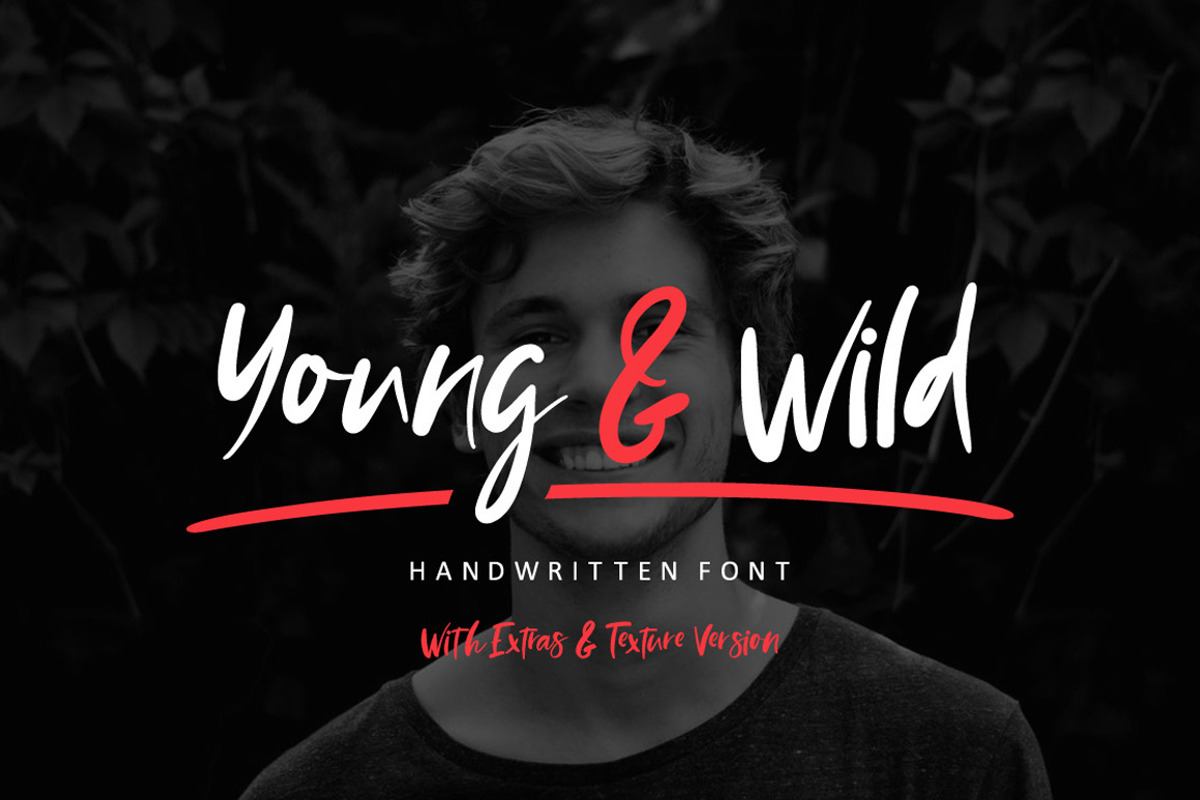
NEW! Young & Wild Brush Font Free Download
NEW! Young & Wild Brush Font Free Download is a bold, energetic, and expressive brush script typeface designed to add a raw, hand-painted touch to your designs. With its dynamic strokes and creative brush texture, this font is perfect for creating attention-grabbing logos, posters, social media graphics, event invitations, and more. The font exudes a sense of youthfulness and rebellious energy, making it ideal for projects that need to feel vibrant and full of life.
Using the NEW! Young & Wild Brush Font Free Download brings a creative, free-spirited vibe to your typography. Whether you're designing for a music event, creating promotional content, or crafting custom artwork, this font will help convey a bold and artistic message.